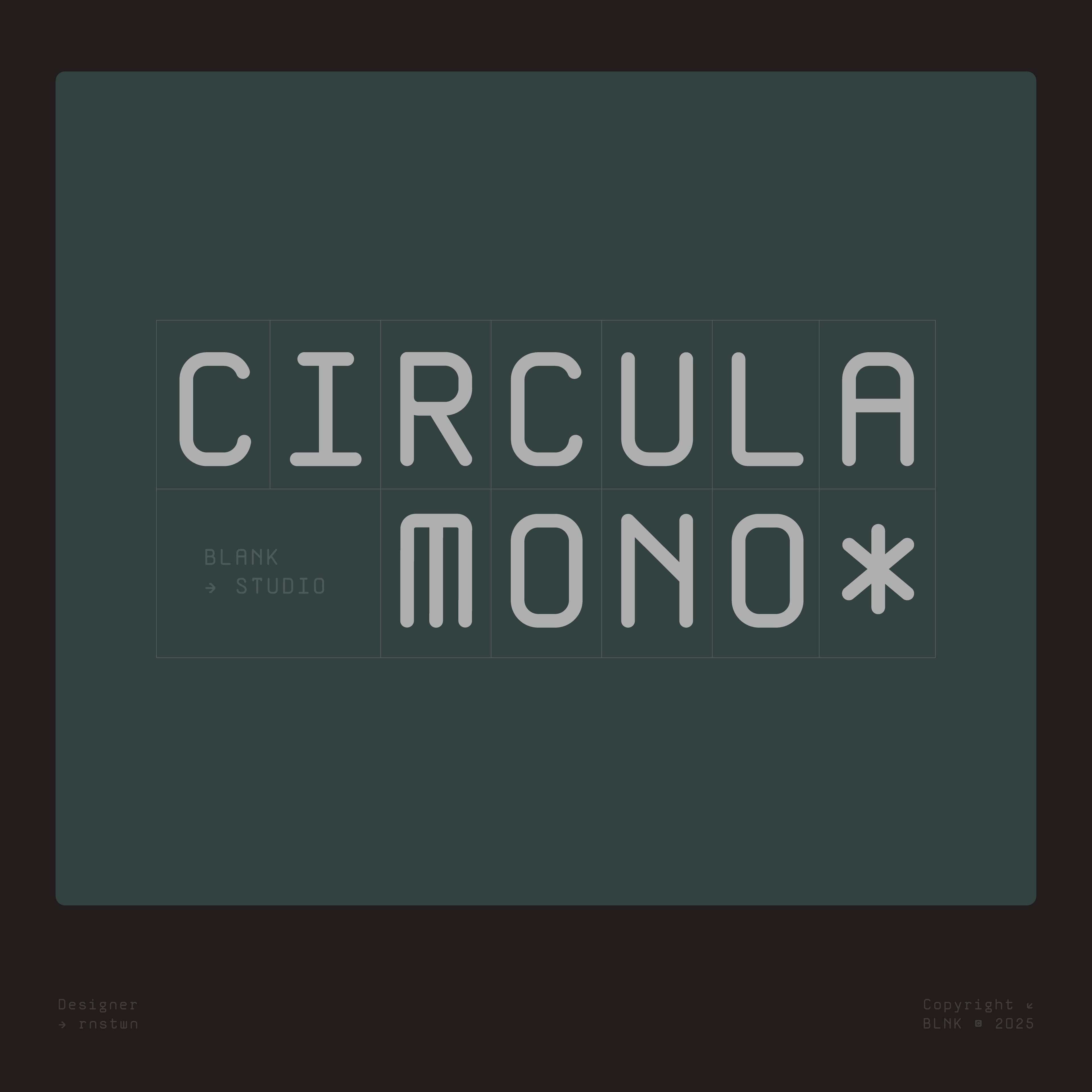
<p><strong>Circula Mono</strong> is a modern monospaced typeface with a soft, rounded aesthetic. Designed with clarity and character in mind, this typeface combines geometric consistency with friendly curves—resulting in a functional yet playful appearance. Its uniform width and precise grid structure make it ideal for code, UI/UX, and futuristic branding projects, while its smooth terminals and circular shapes add a humanized, approachable tone.<br>Whether used in tech interfaces, minimalist posters, or modern editorial layouts, <strong>Circula Mono</strong> offers a clean and distinctive voice that balances structure and personality.</p>